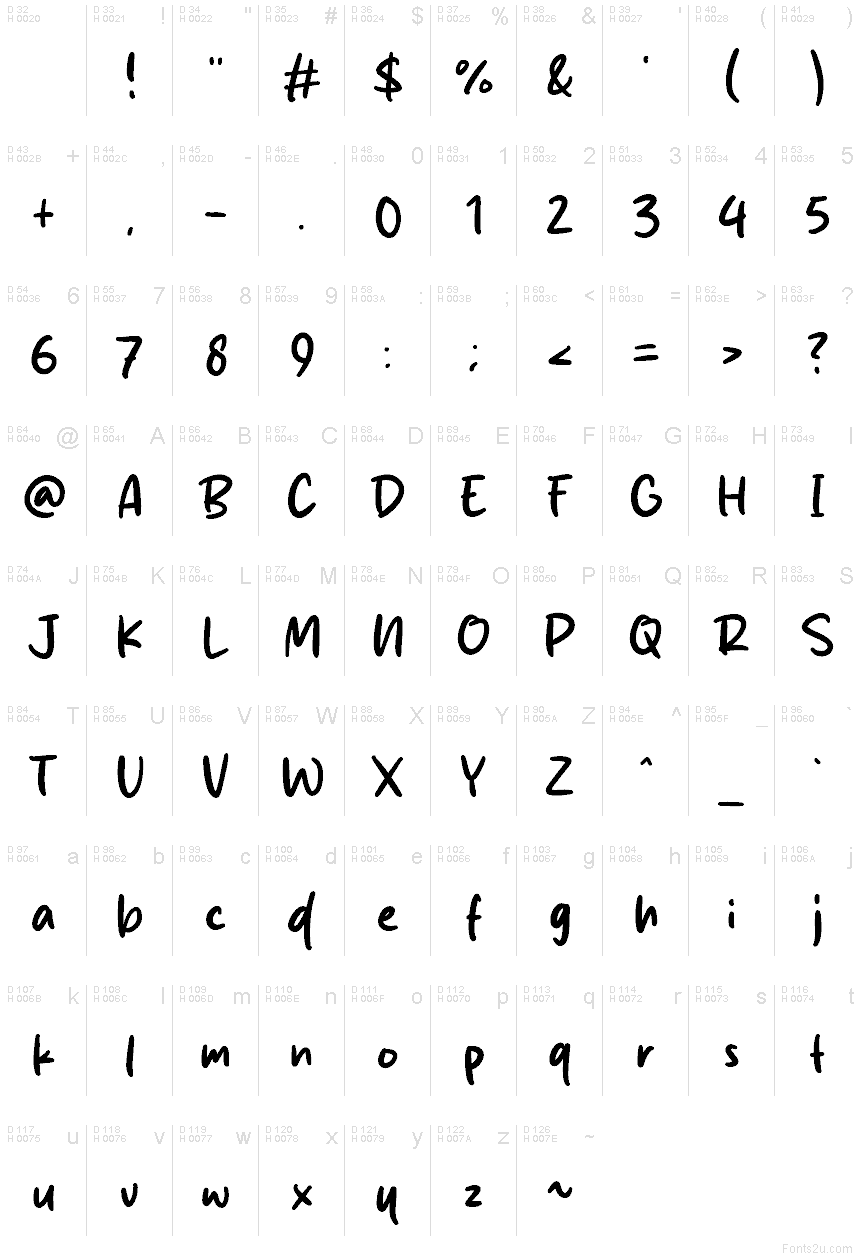
Curry Ramen
Curry Ramen font by MJType captures a contemporary handwritten essence with a casual, expressive style. Its modern appeal and distinct personal touch make it stand out in any design project. Each character is crafted to convey immediacy while maintaining consistency.